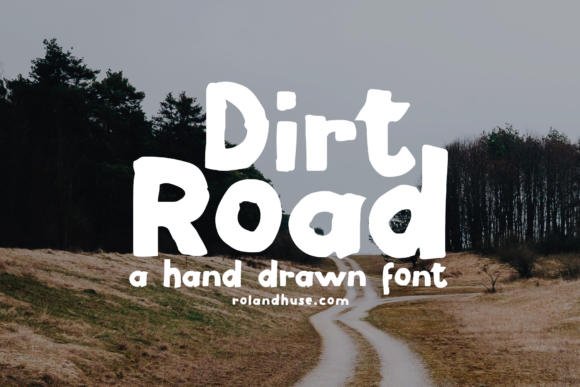
Embrace the beauty of handwritten charm with Dirt Road Font, a captivating display font brimming with rustic allure. Let your designs radiate with an earthy and organic touch, reminiscent of sun-drenched fields and winding country roads. Unleash your creativity and let Dirt Road Font be your guide as you craft captivating posters, enchanting invitations, eye-catching social media posts, and more.
Indulge in the limitless possibilities, whether you're a seasoned designer or just starting your creative journey. Dirt Road Font's effortless charm will transform your projects into works of art. Its playful and inviting nature makes it perfect for children's books, playful packaging, and cheerful branding.
Step into a world where imagination thrives and handwritten elegance reigns supreme. Let Dirt Road Font carry your message with a touch of whimsy and a dash of nostalgia. Its generous proportions and remarkable legibility ensure that your words will resonate with warmth and authenticity.
So, embark on an adventure with Dirt Road Font as your trusty companion. Discover the joy of creating designs that speak to the heart, leaving an enduring impression on your audience. Elevate your projects to new heights of creativity and experience the magic of Dirt Road Font today!